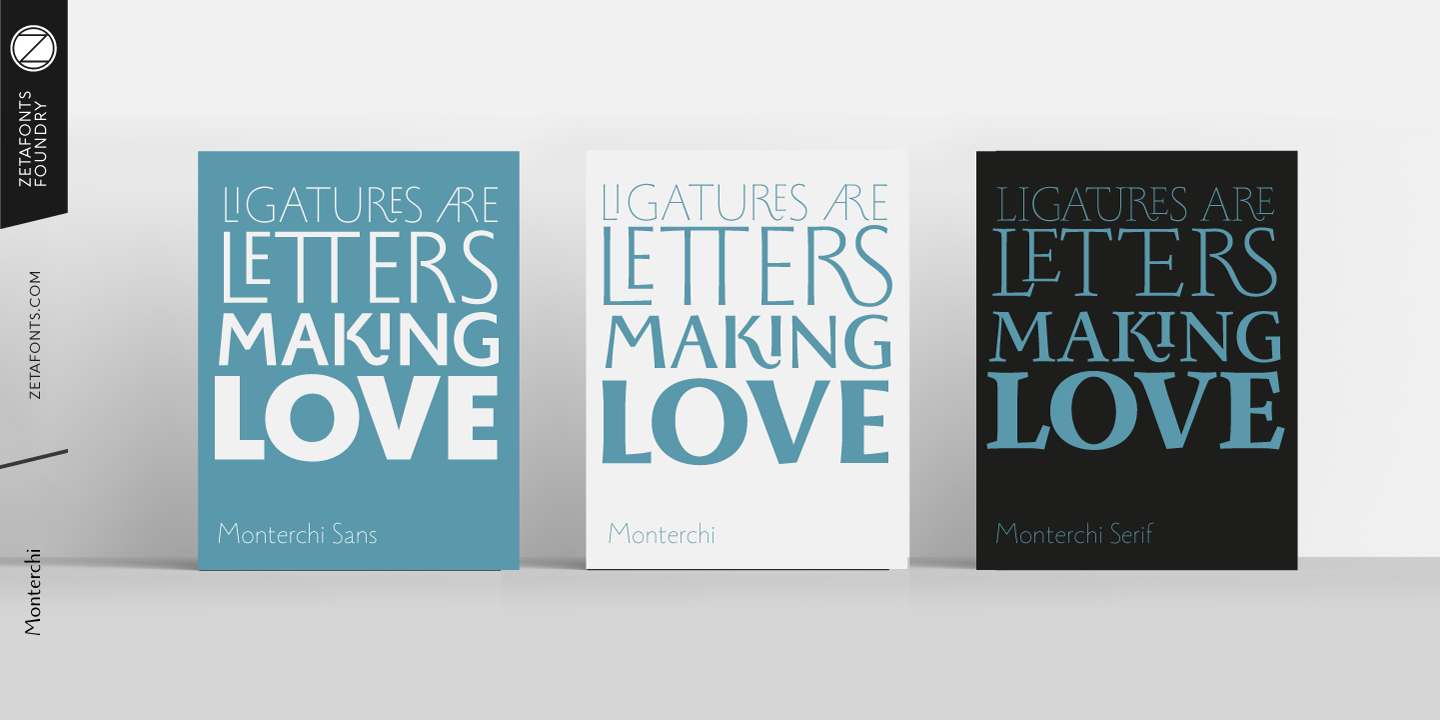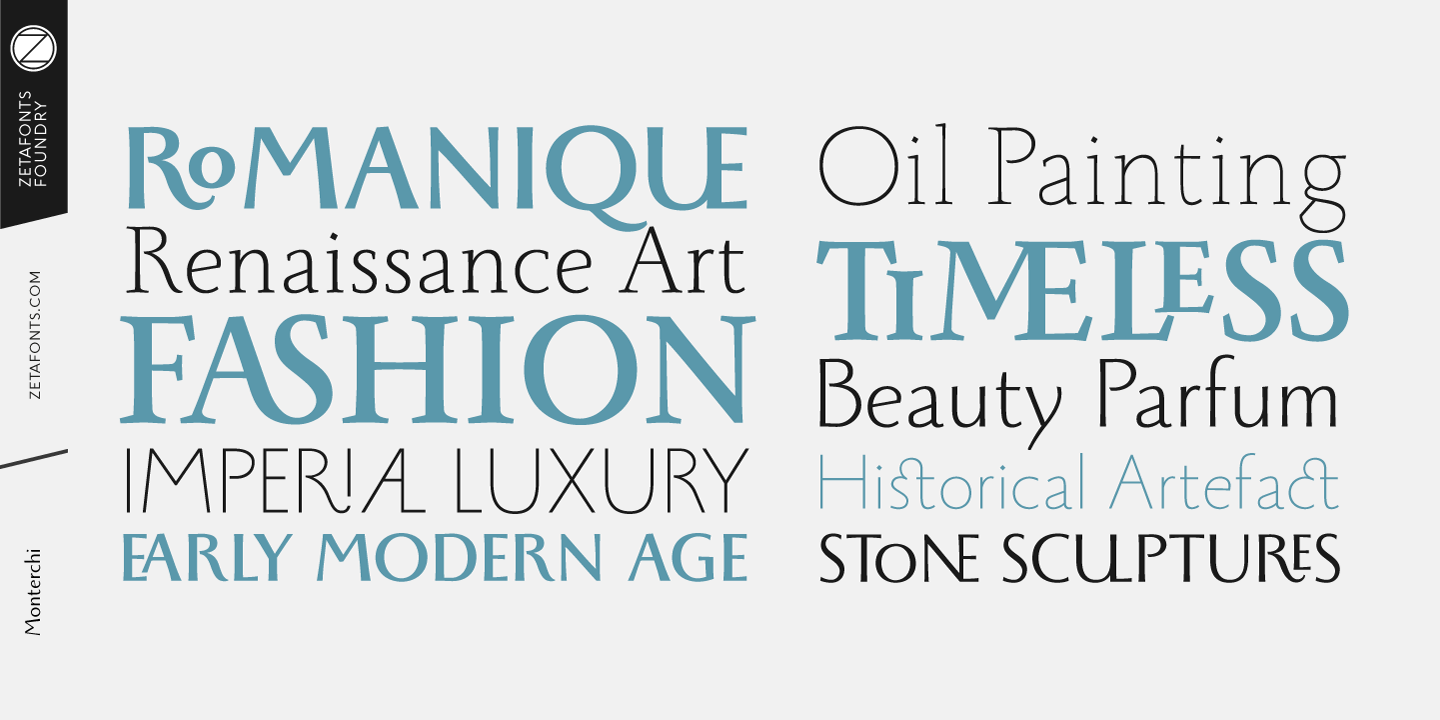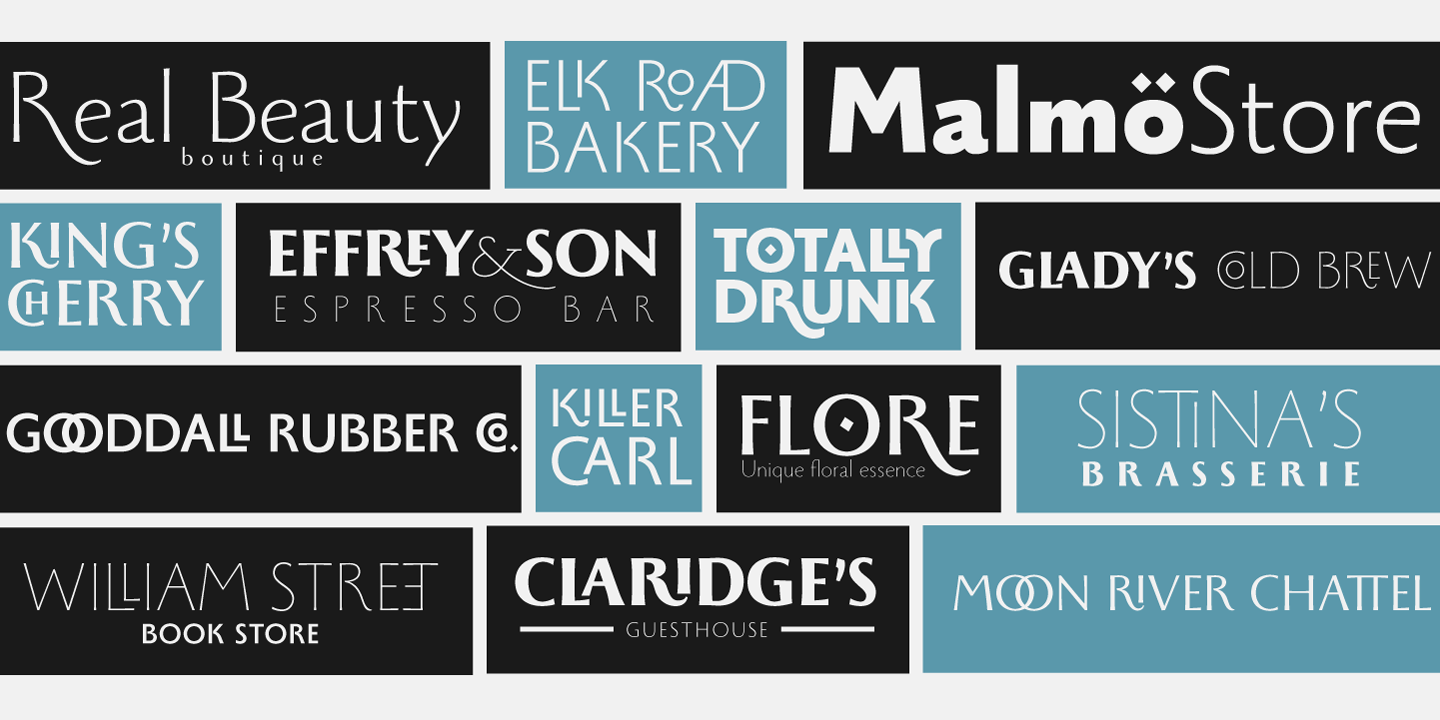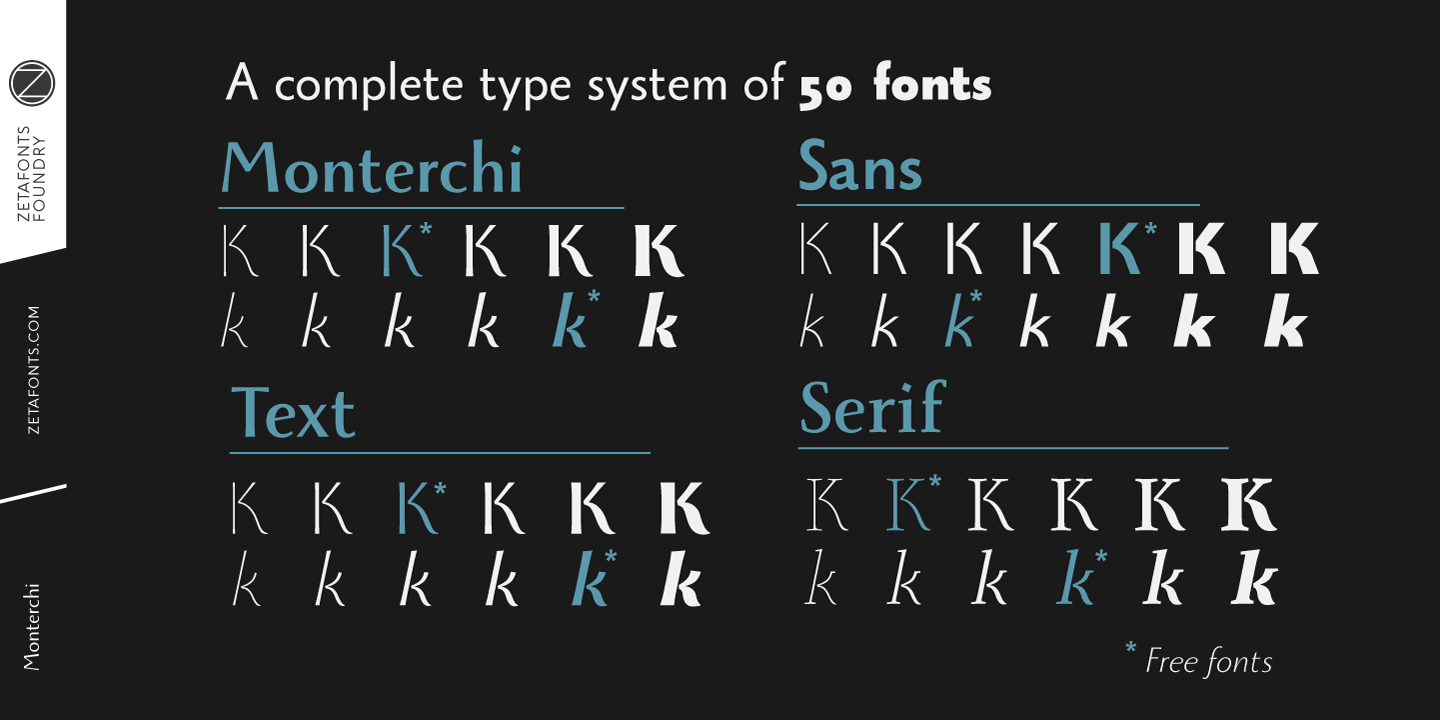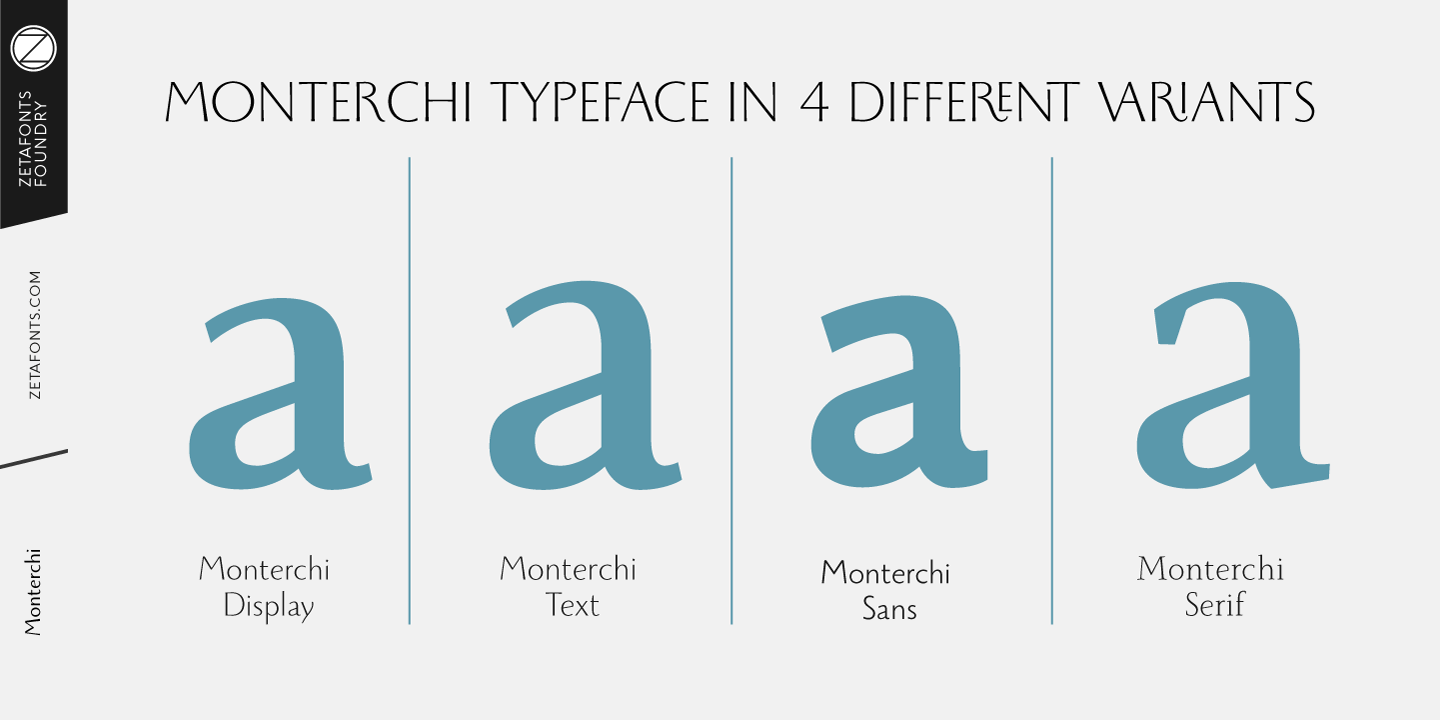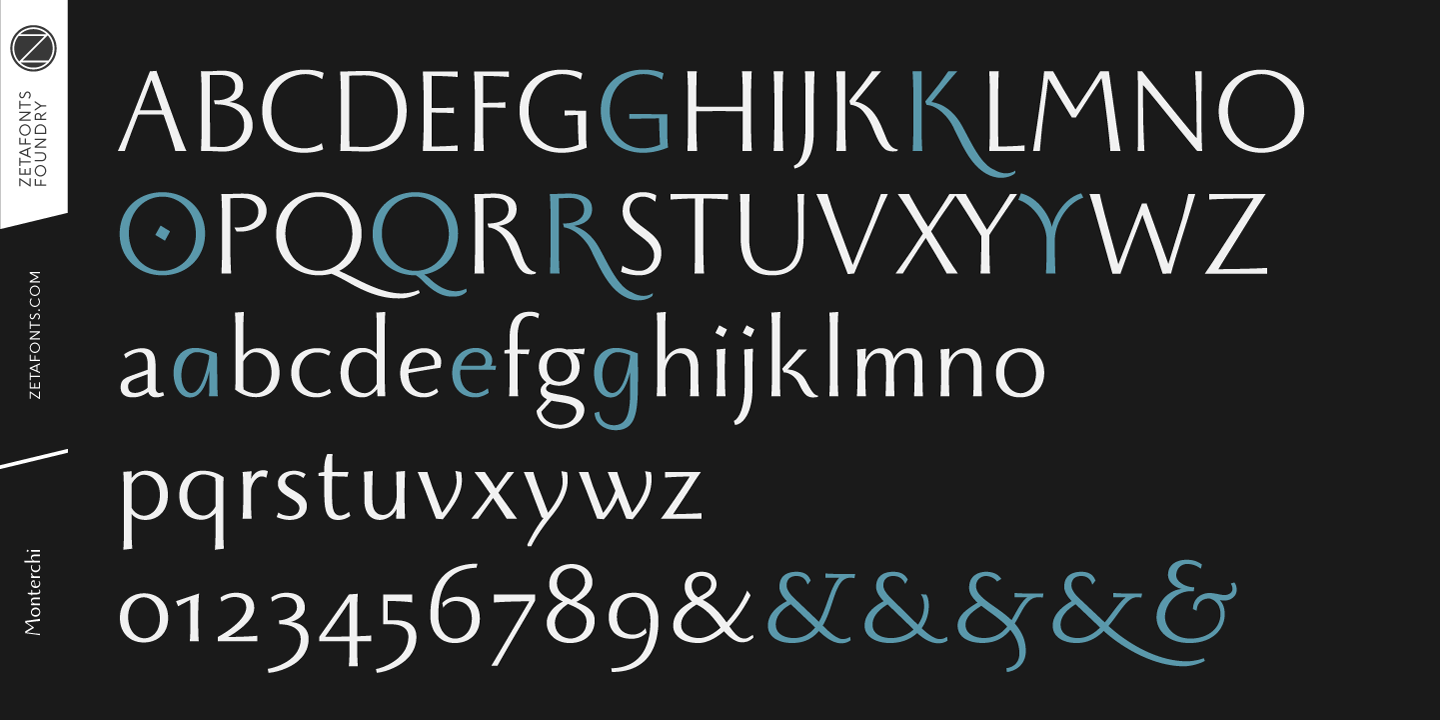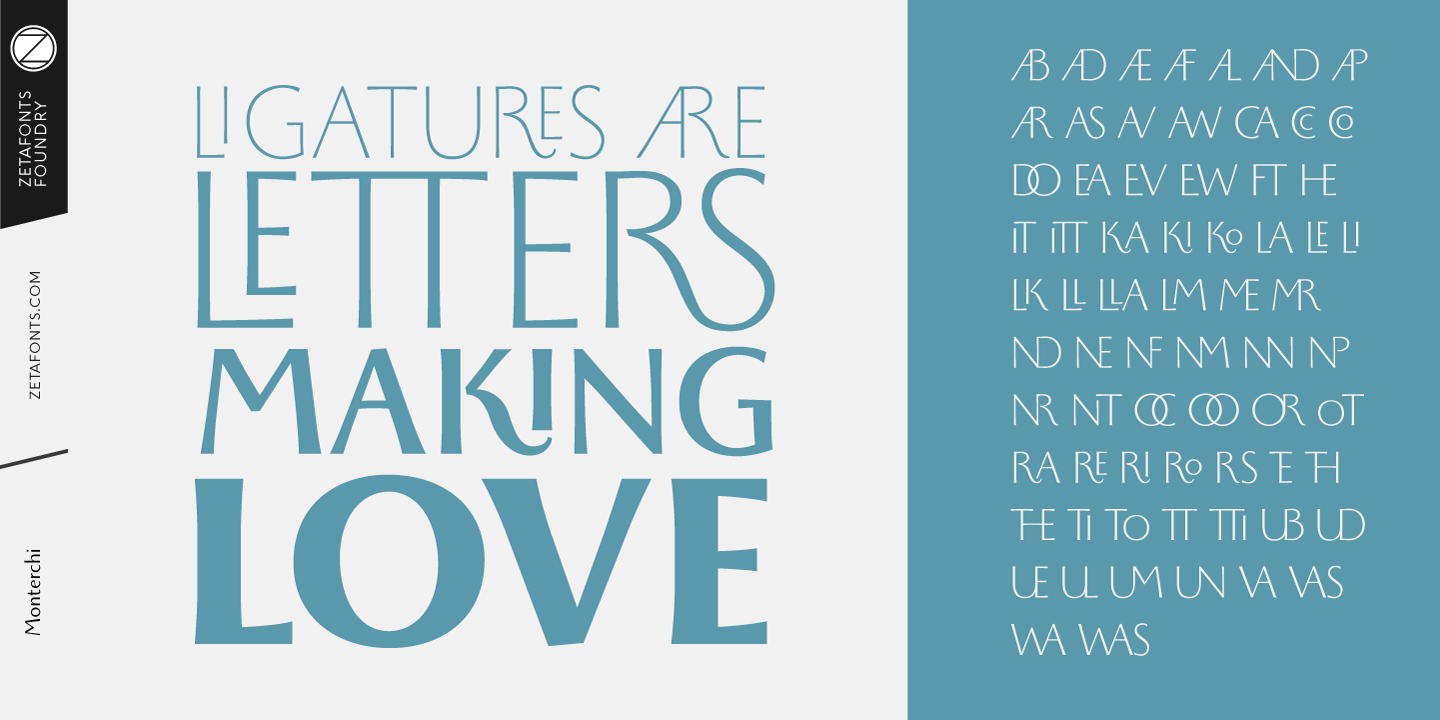
About the Monterchi Font
About Monterchi Font Family In 1459, while visiting his dying mother, Italian painter Piero della Francesca spent seven days creating a fresco of a pregnant madonna in a small country church in the hilltown of Monterchi (Italy), Hailed today as one of the masterpieces of Italian Renaissance, the fresco was given a new branding in 2019 by Art Director Riccardo Falcinelli who asked the Zetafonts team to develop a custom font for the project
The resulting typeface system, designed by Cosimo Lorenzo Pancini together with Andrea Tartarelli and Maria Chiara Fantini as a rework of Francesco Canovaro original Beatrix Antiqua, is a 50-weights ode to the beauty of classical roman letterforms, that pairs elegant alternates and quirky ligatures with an array of design options for clear and effective editorial, signage, logo and wayfinding design
The base display family, Monterchi, allows endless design expressions with a range of six weights from the slender thin to the strong extrabold, all with matching italics and an array of over one hundred discretionary ligatures, A fine-tuned companion Monterchi Text has been developed to excel in body use, with a larger x-height and wider spacing – clear and legible even at small sizes
The use range of the family is enriched by Monterchi Serif and Monterchi Sans that feature different contemporary interpretations of the same classical geometric skeleton, allowing for layered editorial design and variation, All the fifty fonts in the Monterchi Type System feature an extended character set of over 1100 glyphs covering over 200 languages using the Latin alphabet, as well as Greek and Russian Cyrillic
Open Type features include small caps, positional figures, alternate letterforms, stylistic sets and discretionary ligatures, With his elegant, historical aesthetic, Monterchi embodies the spirit of early Renaissance and the humanist obsession with constructed and geometric beauty – still managing to function as a workhorse family, ready to help any designer in need of a timeless classic look, or looking for the right ligature to transform a simple word into a striking wordmark